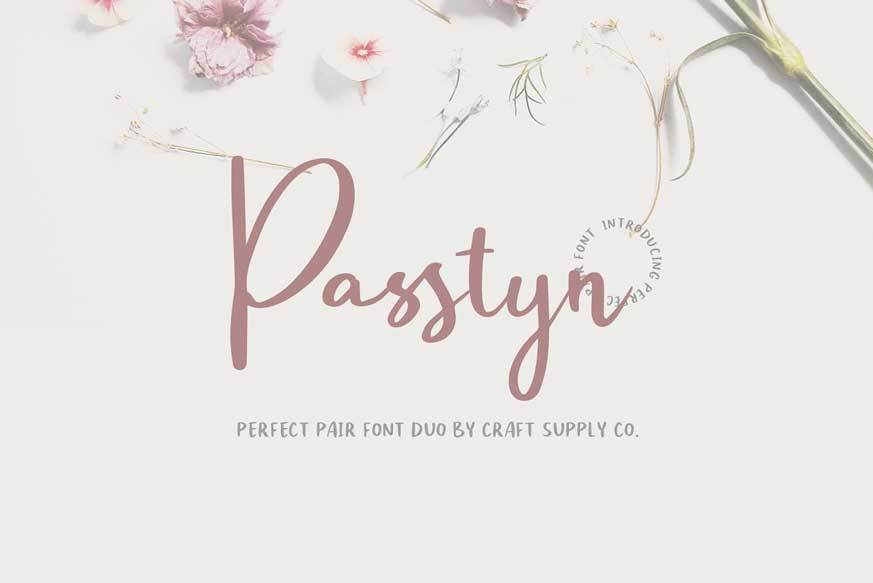
Passtyn Handwritten Font Duo
Passtyn – Handwritten Font Duo is an handwritten script font based on the expression of real handwriting. Larissa – A Lovely Script Font will work perfectly for fashion, e-commerce brands, trend blogs, wedding boutiques or any business that wants to appear upscale and chic.